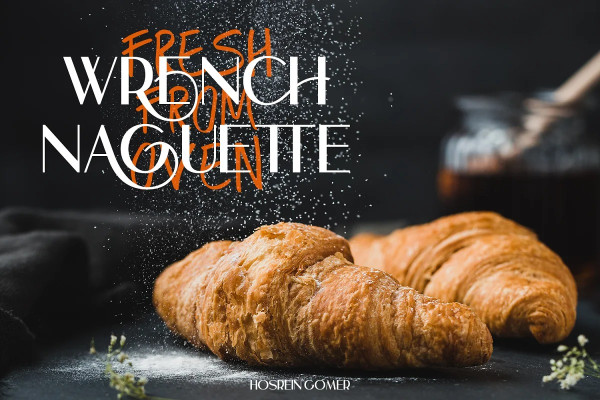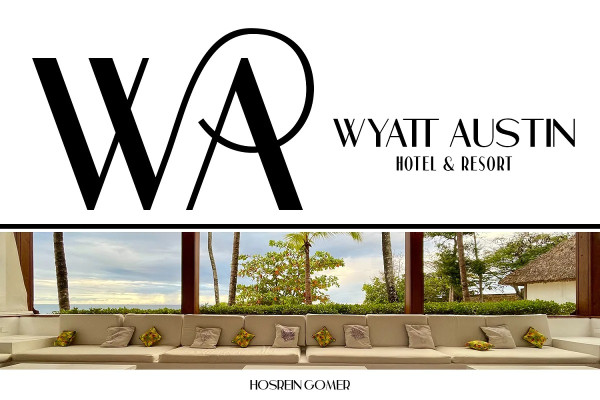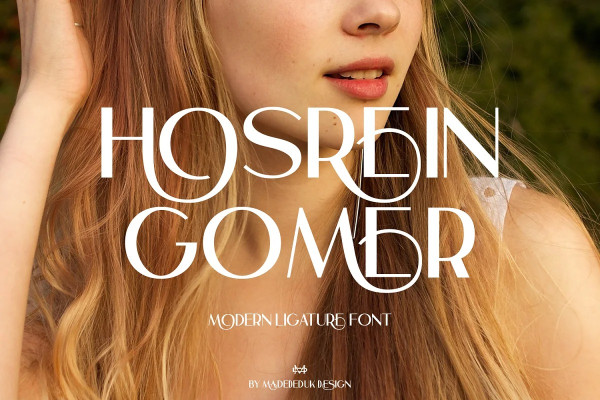
Hosrein Gomer Font
Hosrein Gomer Font is a Modern Ligature Font, use this font for any branding, product packaging, headline, invitation, fashion, label, poster, logo etc.